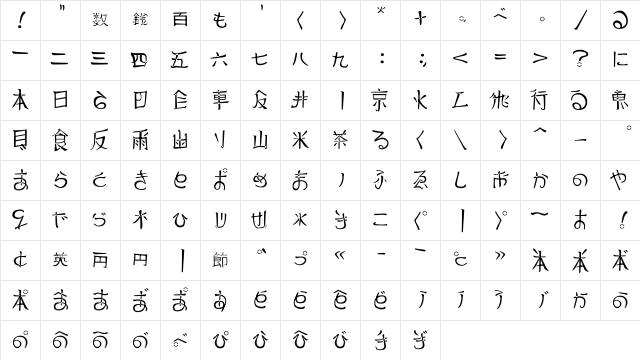
Complete Reading From The East #4 Regular glyph index. Displaying only characters natively supported by Reading From The East #4 Regular font.
Reading From The East #4 is a composed and adaptable typeface that performs quietly and consistently across a wide range of design contexts.